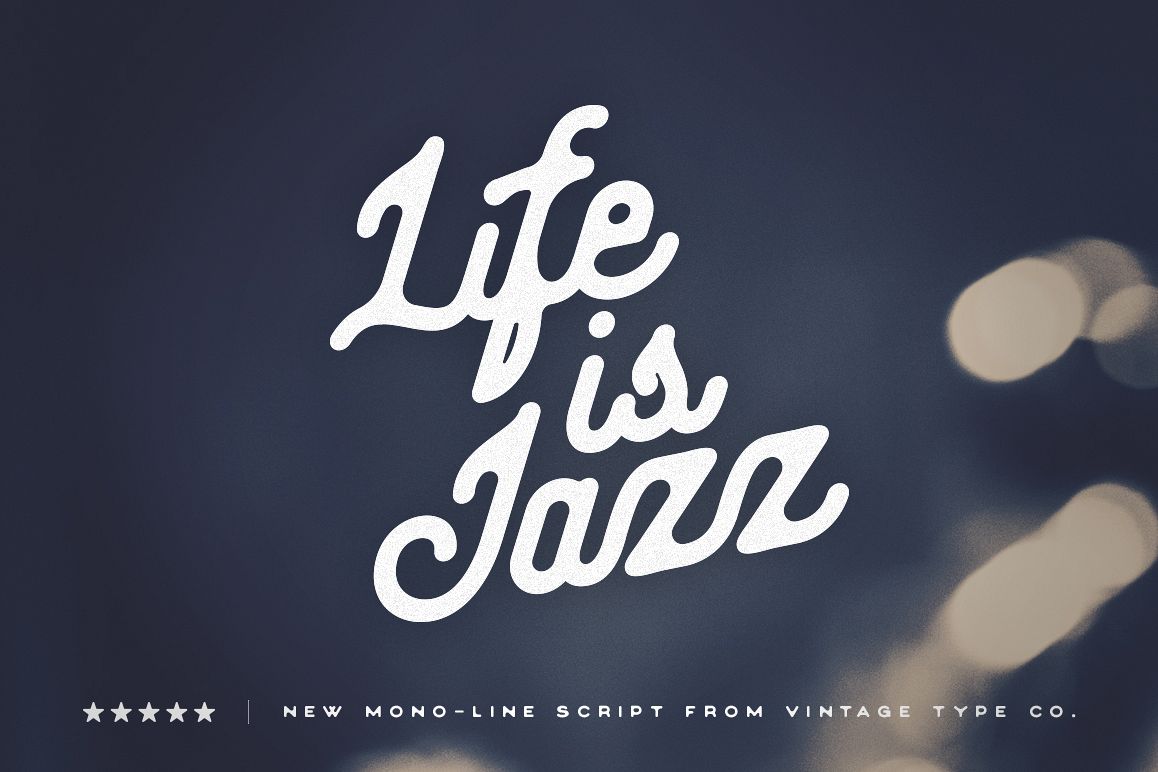
Life Is Jazz Script
Life is Jazz script is a vintage, hand-drawn inspired, mono-line font that is sure to be a great addition to your type arsenal. Use it for branding, packaging, posters, logos, print campaigns, web campaigns, cover design, motivational posters and printed goods, and so much more!
Aside from packing in a ton of character, Life Is Jazz comes with a wide variety of special characters to use, including decorative swash elements and also comes included with multilingual support for the following languages:
Breton, Catalan, Czech, Danish, Estonian, English, Finnish, French, German, Icelandic, Italian, Latvian, Lithuanian, Norwegian, Portuguese, Romanian, Polish, Scottish Gaelic, Slovak, Slovenian, Spanish, Swedish, Turkish, Welsh.